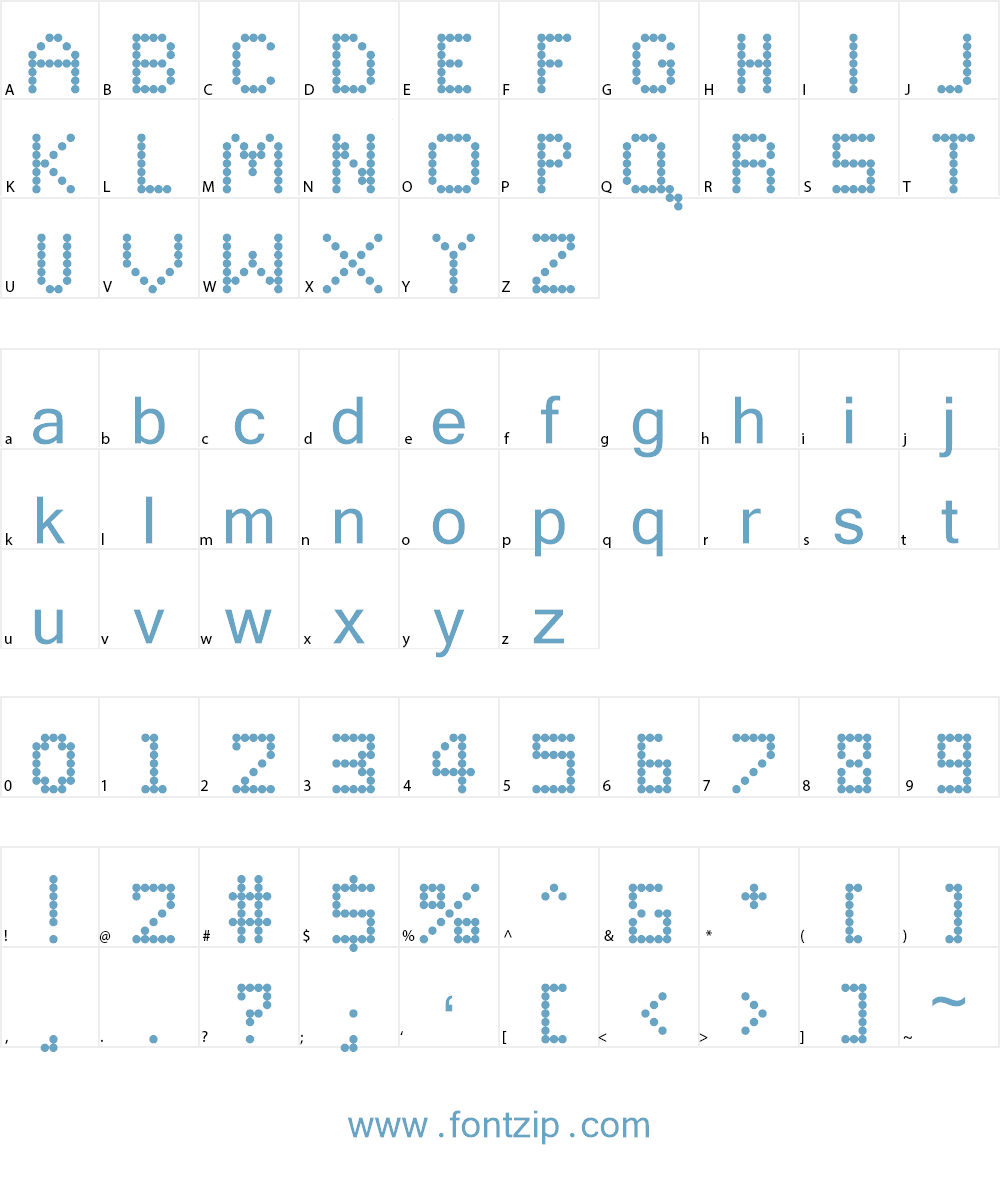
Retroscape II is a LED/Scoreboard style relative of Retroscape by Cannot Into Space Fonts. Licensed under the Creative Commons CC0 Public Domain License.